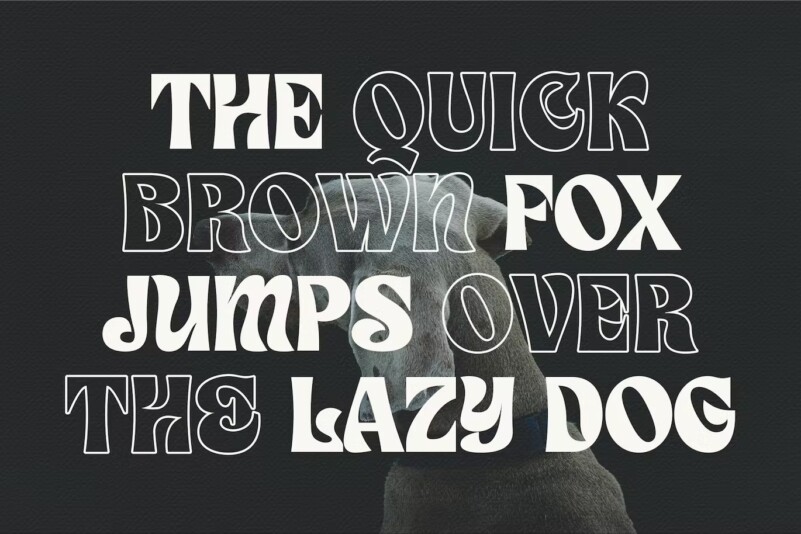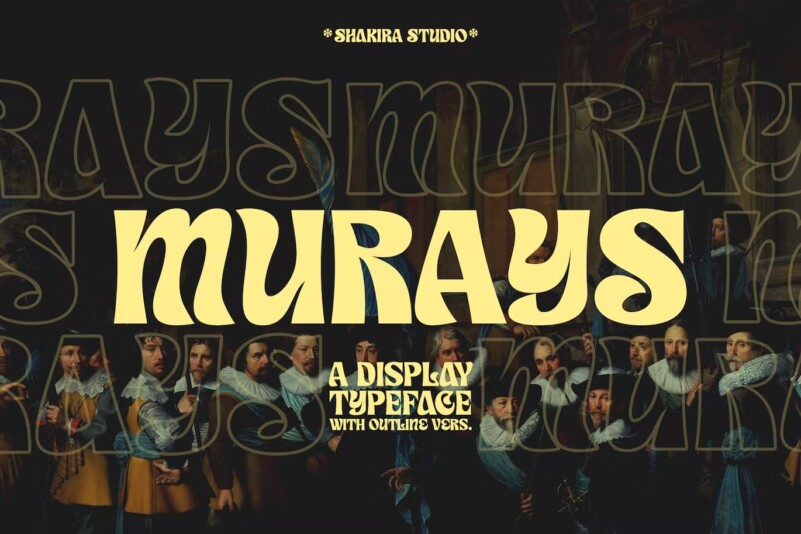
Murays – Retro Display Font
We present to you our new product called Murays . This set of scripts is perfect for personal branding. The Murays font exudes a bold and luxurious retro feel. Murays is suitable for any design projects, such as posters, banners, logos, invitations, magazine covers, quotes, headlines, printed products, social media, etc.